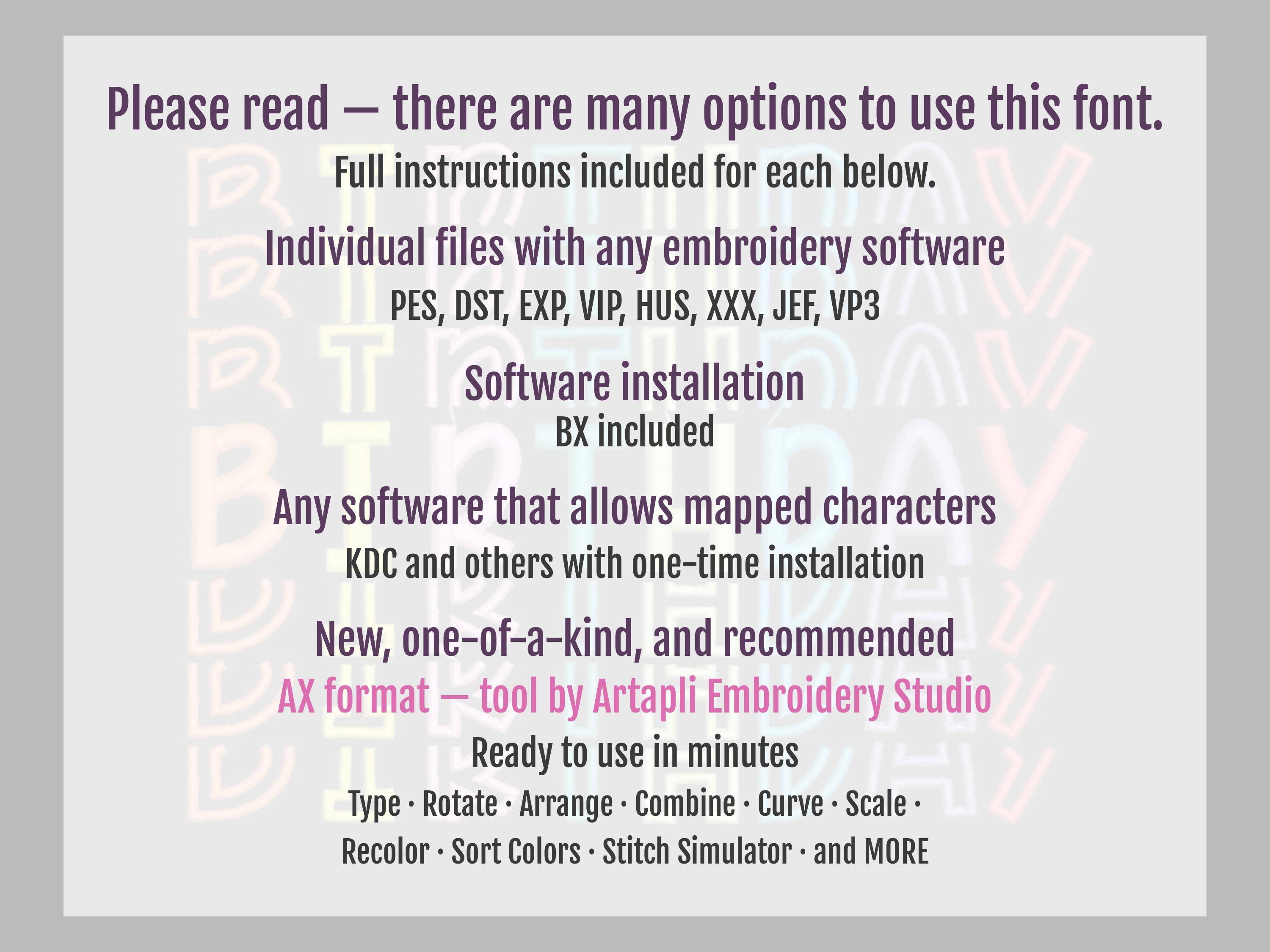
Stacked Font, BX included! Satin stitch and outline alphabet letters, kids boy trend Font awesome machine embroidery designs in assorted sizes
The whole alphabet A-Z uppercase, numbers and ampersand &